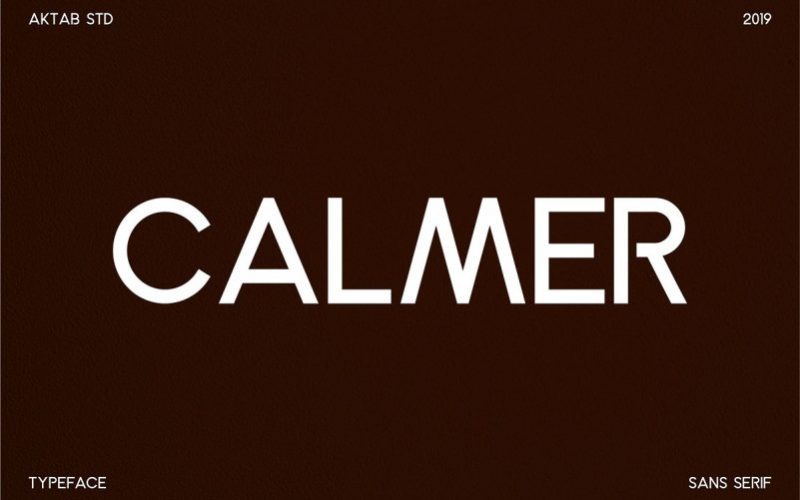
Calmer Font Family
Calmer is a proportional font family and sophisticated sans serif. Inspired by branding typography, it’s sturdy uncompromising style is felt through the controlled letterforms and modern touches.
A balance of hard lines and smooth curves. Each font in the family can stand on its own, dynamic and authoritative in their own right.